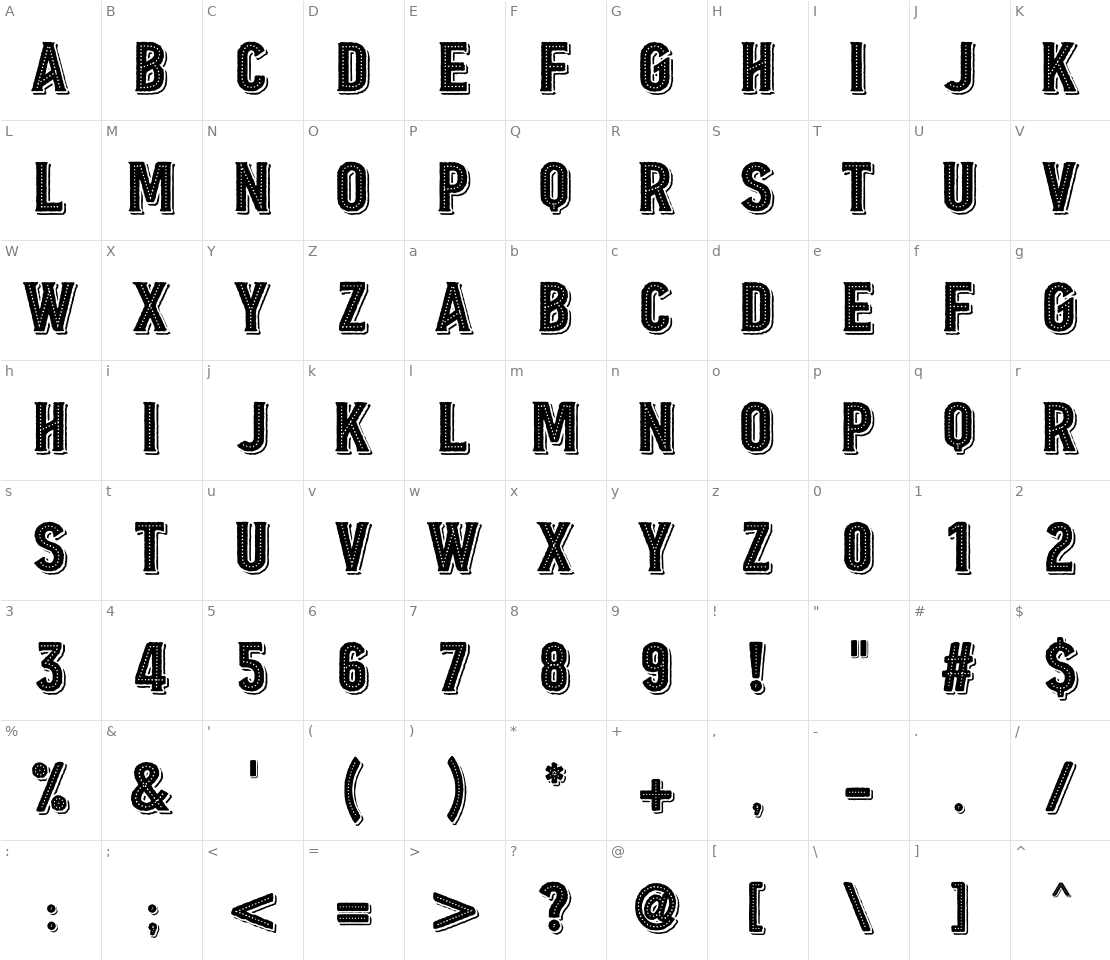
Borgens Burlesque
by Jeremy Dixon
Borgens Burlesque is a bold, decorative display face by Jeremy Dixon that pulls from the ornamental lettering traditions of circus posters and old Western showbills. The letterforms feature dotted textures and built-in shadow effects, giving them a dimensional, printed-on-paper quality straight out of the 19th century. Best for headlines, posters, and vintage-themed branding where you want type that feels like it belongs on a broadside nailed to a saloon wall.